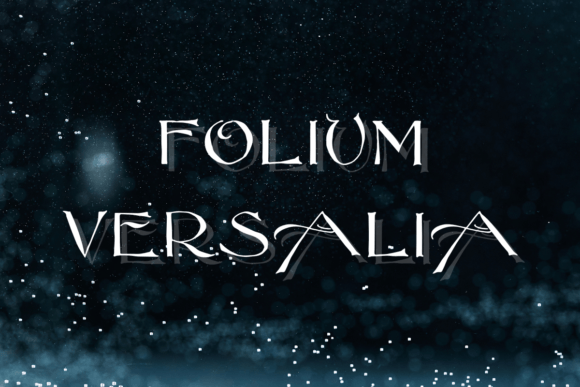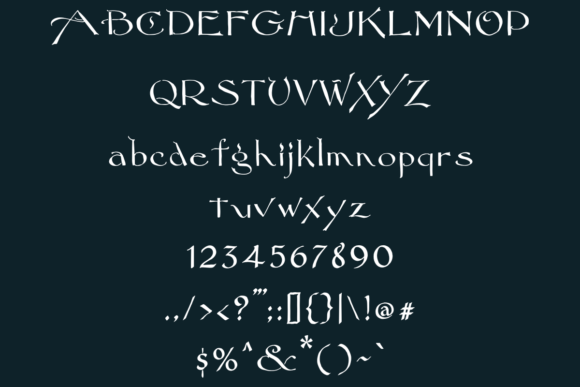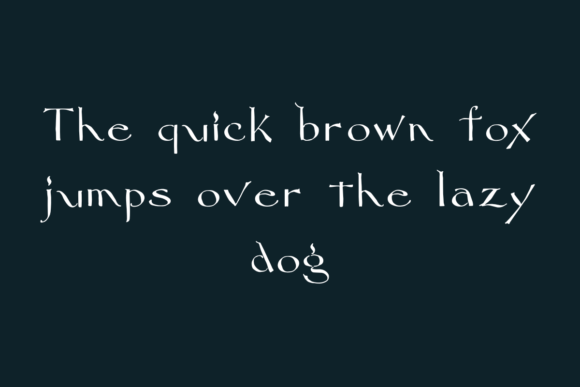
Folium Versalia Font: Elegant Calligraphy for Storybooks & Vintage Design
About the Folium Versalia Font
From logos to headlines, the Folium Versalia Font is the perfect choice for making a lasting impression. Introducing Folium Versalia – a timeless masterpiece inspired by the rich heritage of medieval calligraphy and Celtic craftsmanship. This meticulously crafted font is your gateway to a world of captivating stories, where words come to life in a truly enchanting way. Perfect for storybooks, historical narratives, or any project seeking to transport readers to a bygone era, Folium Versalia is a testament to the art of typography.
Folium Versalia’s elegant, yet slightly rustic character makes it ideal for headlines, short text blocks in branding materials, or high-impact posters. Its ornate details, however, would be less effective in body text or lengthy paragraphs, where readability suffers. Avoid using it for UI elements or applications requiring small sizes.
This font exudes a sophisticated, slightly old-world charm. It pairs well with clean sans-serif fonts like Montserrat for a contemporary contrast, or with a warmer, more traditional serif such as Garamond for a cohesive, classic feel. A touch of playful modernity can be added by pairing it with a geometric sans-serif like Futura.
Its personality is best described as refined and historical; it’s perfect for projects conveying heritage, craftsmanship, or a sense of timeless quality. Consider it for brands associated with luxury goods, historical societies, or literary publications.
Folium Versalia Font Usage Examples
Folium Versalia Font Example